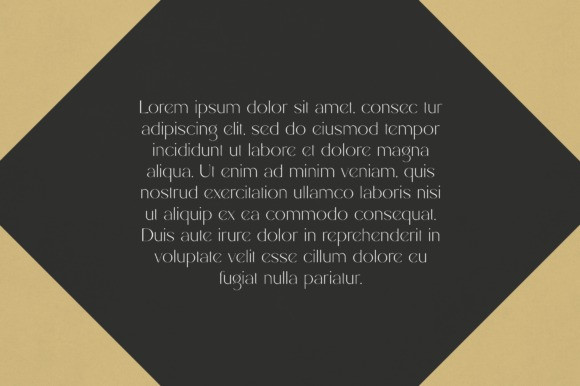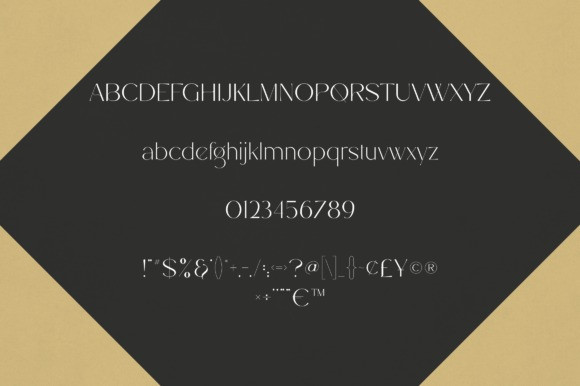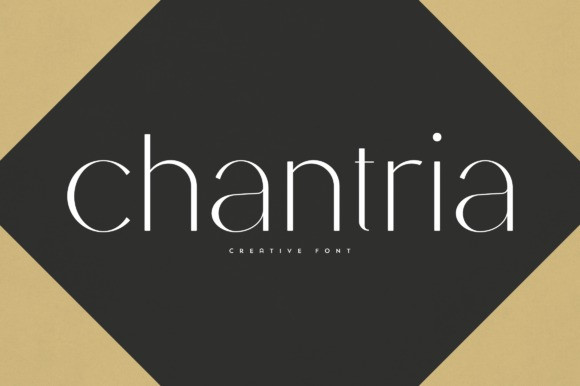
Chantria Font
Chantria Font is an elegant and versatile sans serif font that will make your typography truly unique! It will enchant every logo, branding, headline, or plain text!